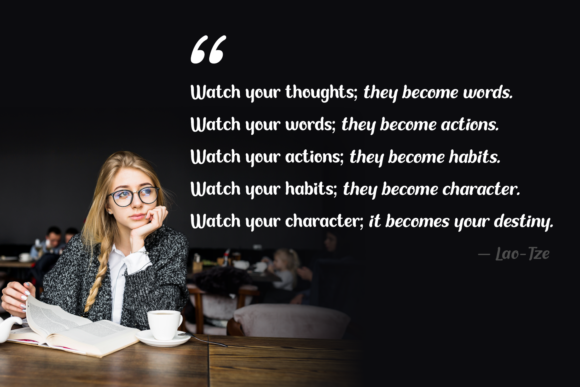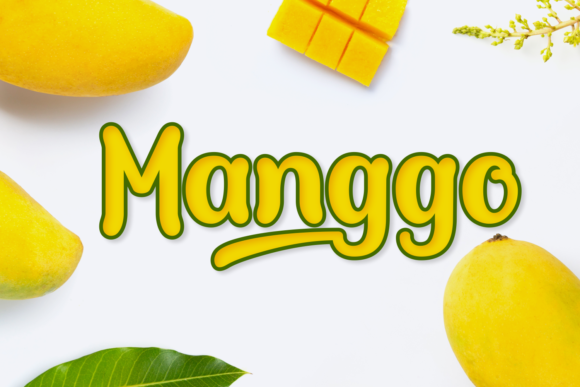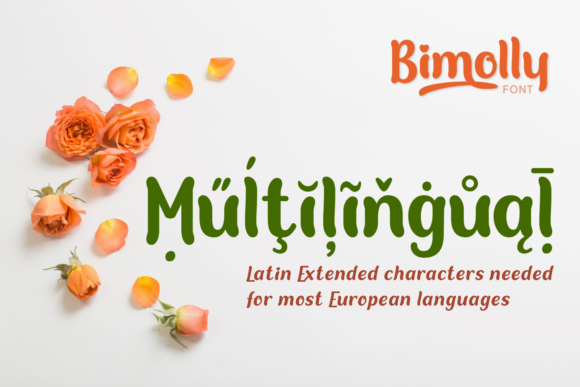
Bimolly Font
About Bimolly Font
Bimolly is a sweet and quirky handwritten font, designed with the help of a beautiful brush pen. Neat lettered, this font is incredibly versatile, fitting a wide variety of contexts.